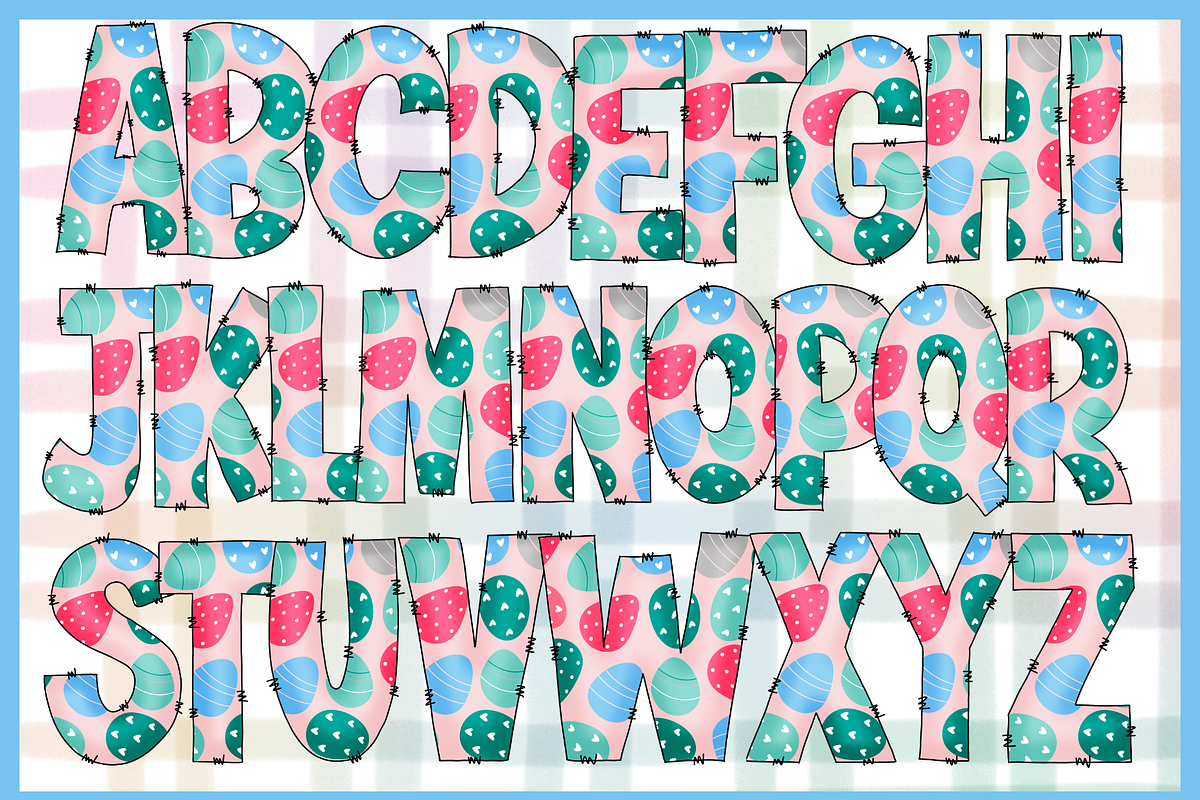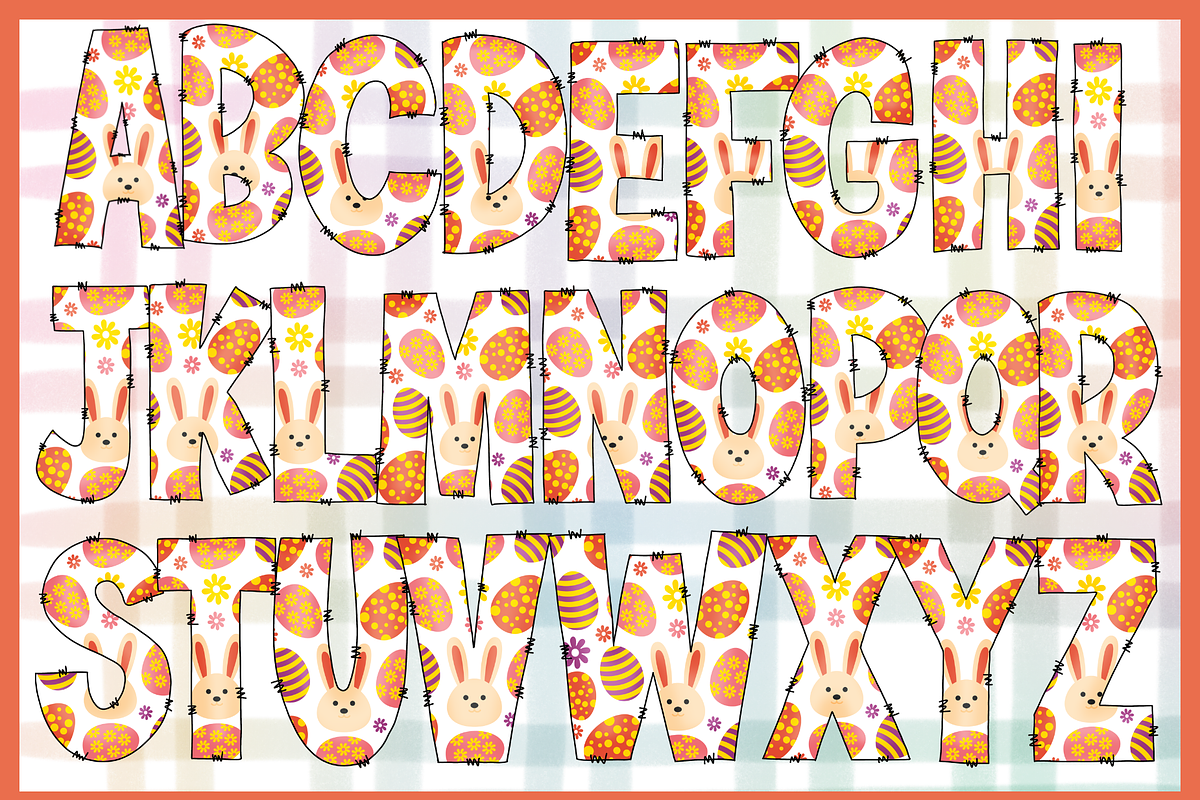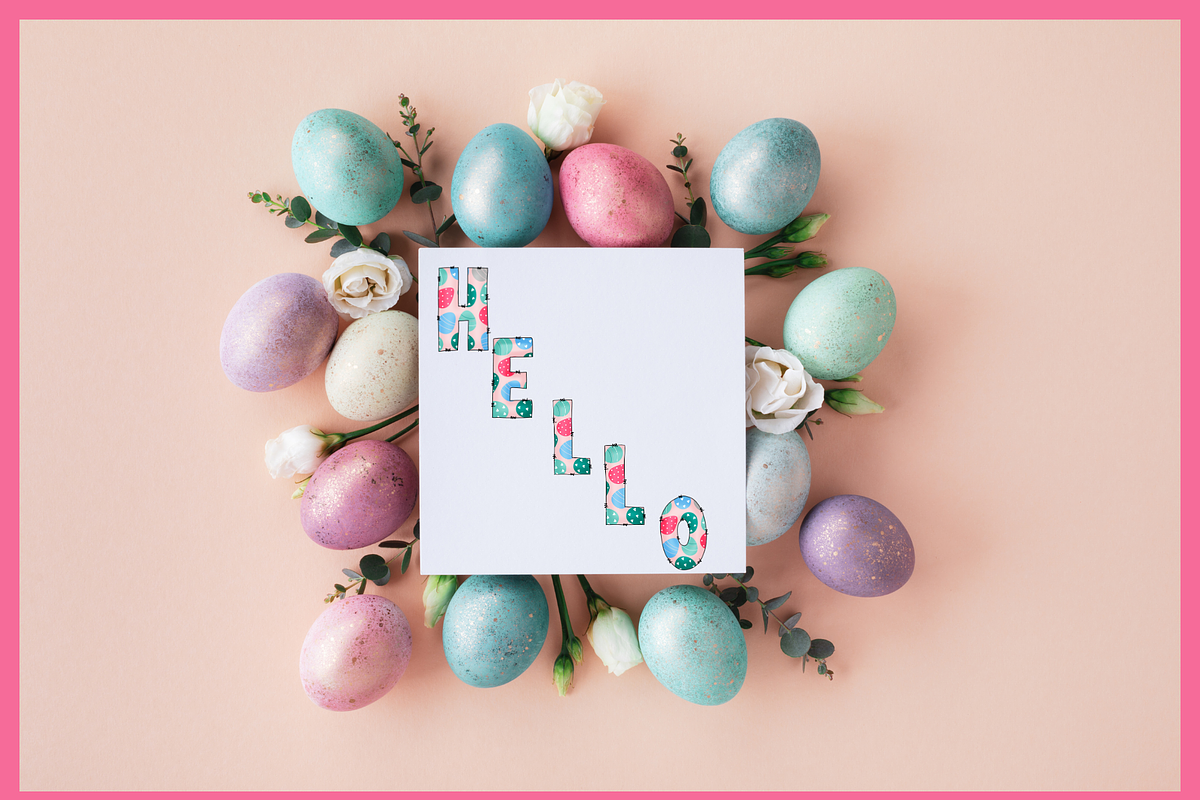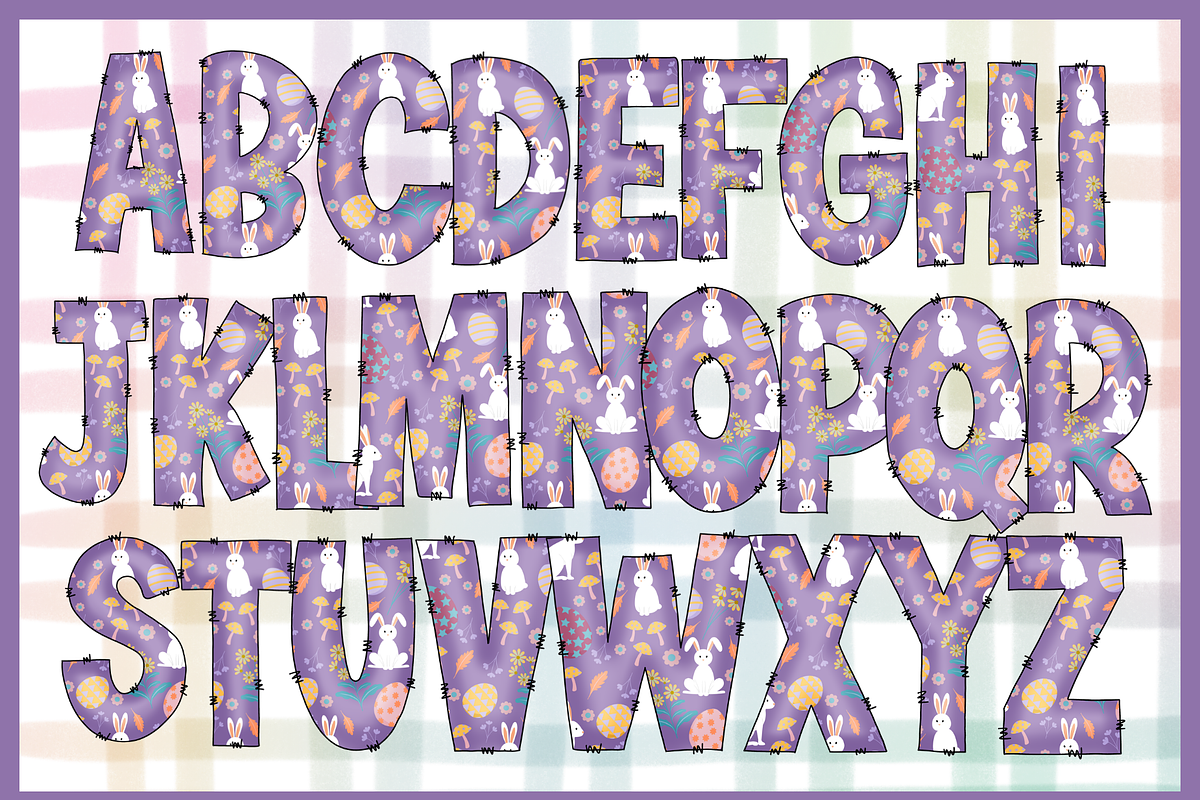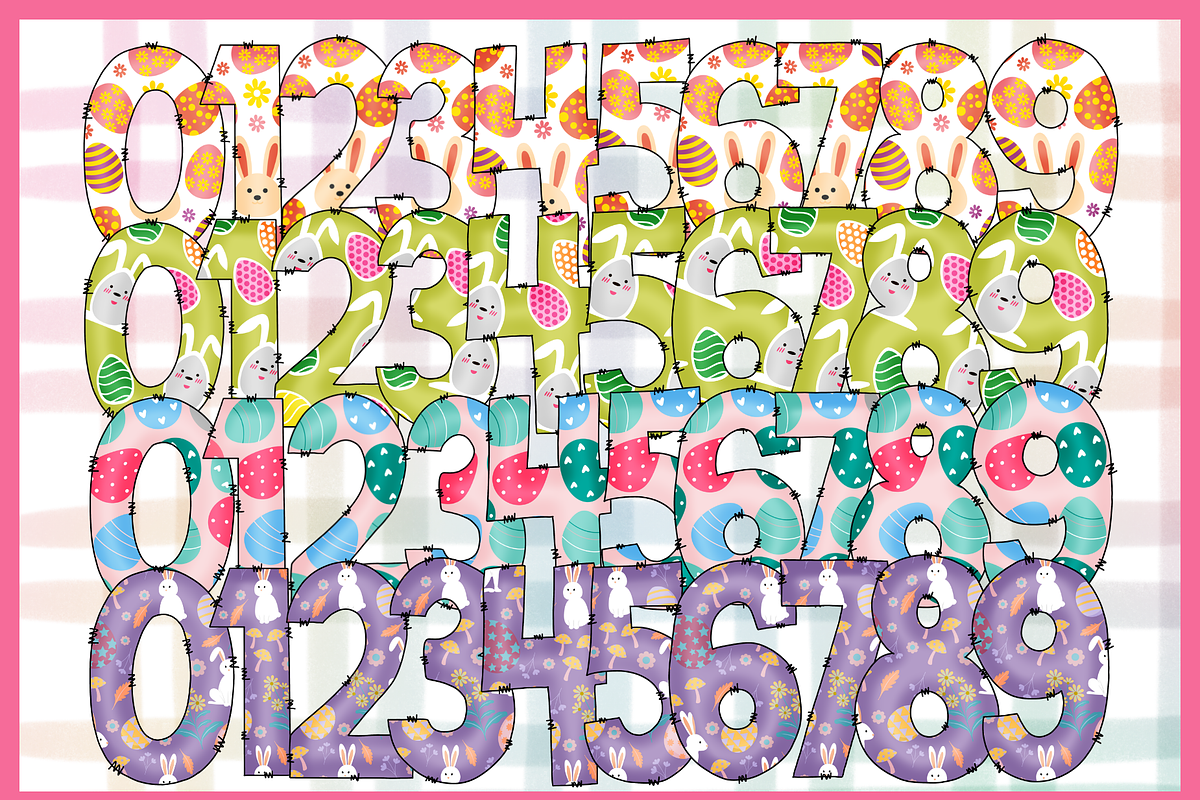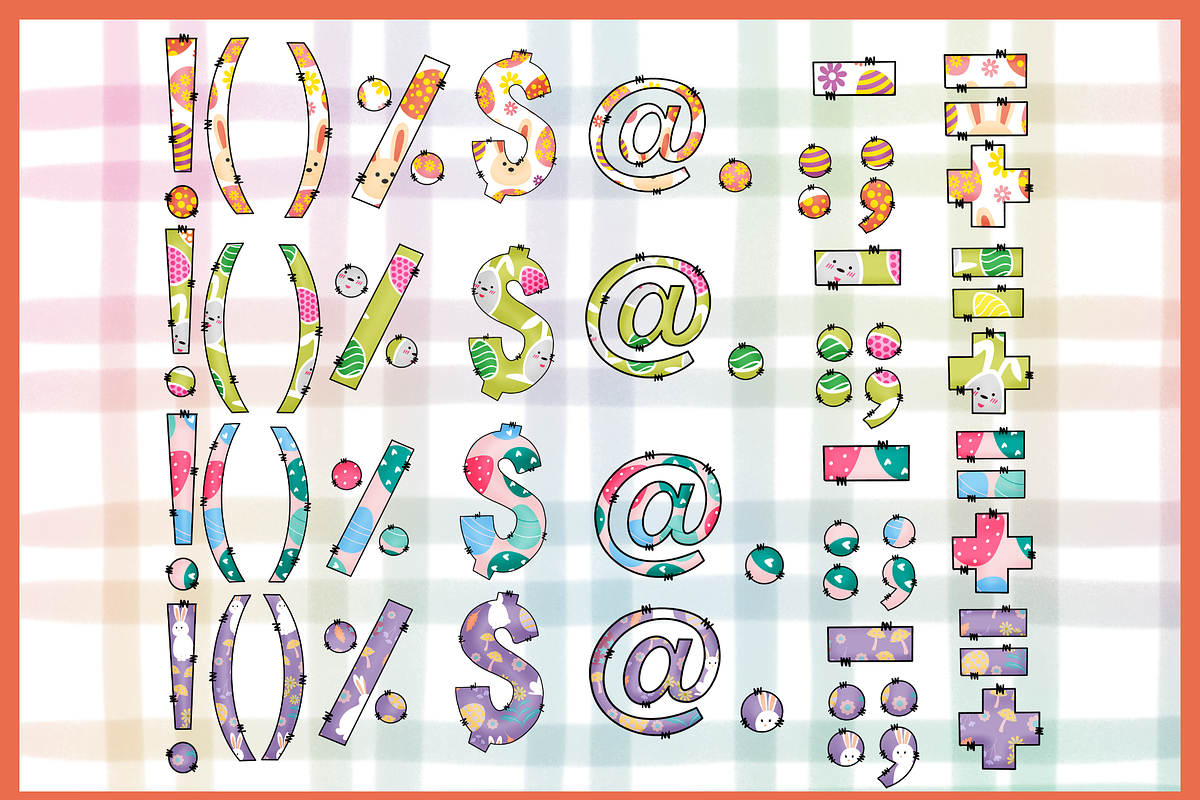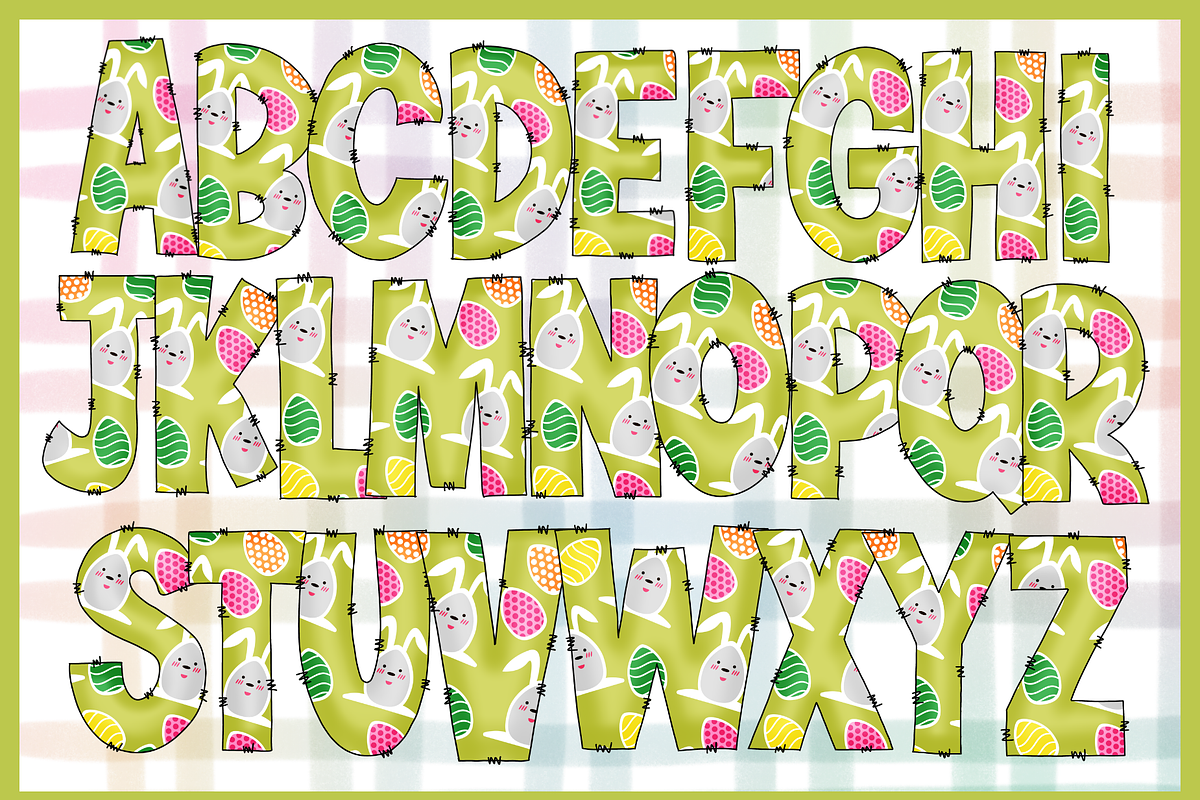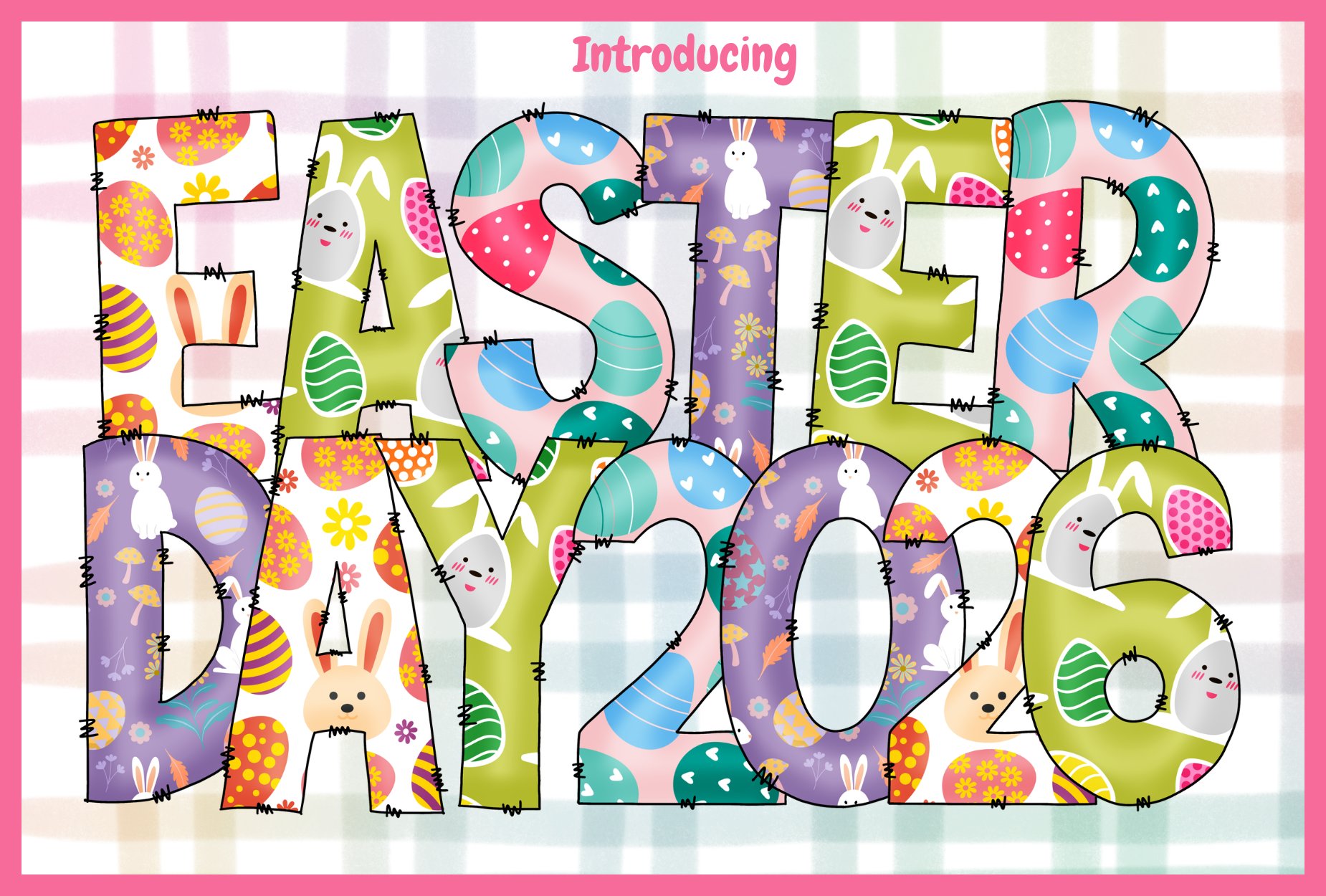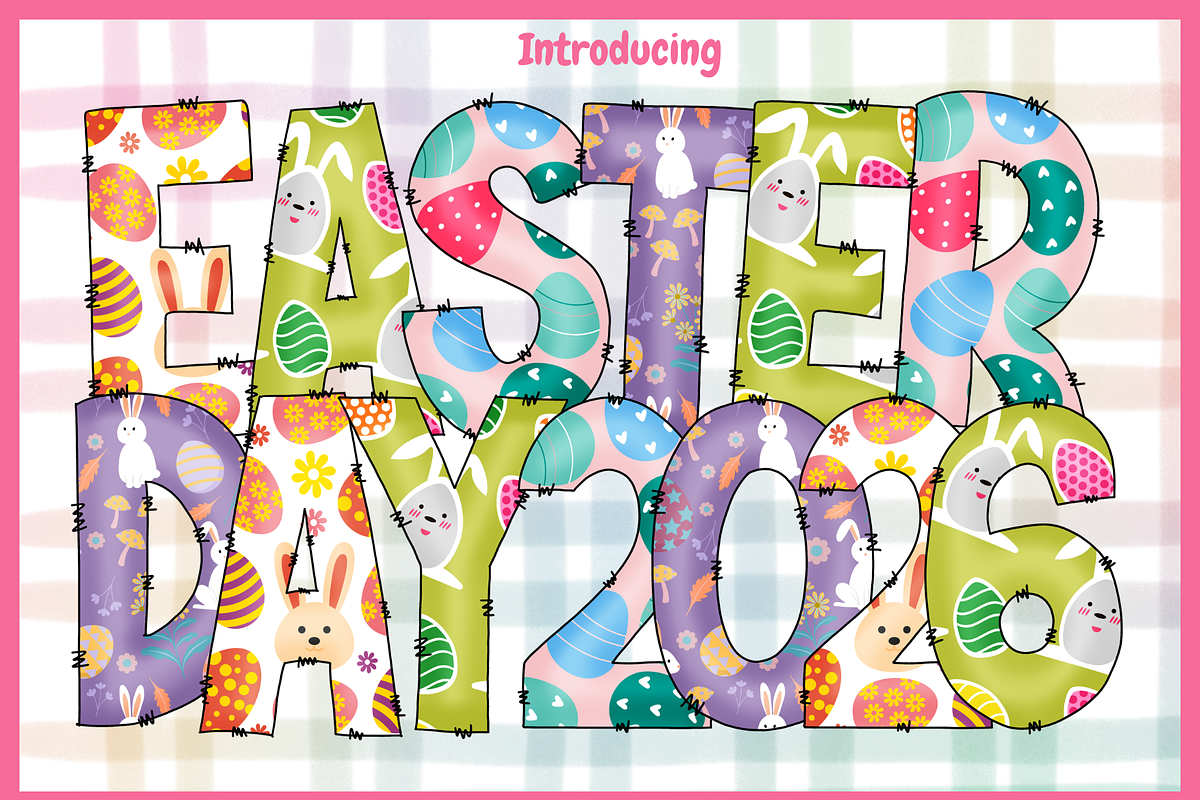
Easter Day 2026-PNG fonts
Easter Day PNG Alphabet – 4 Styles, 4 Colors
Celebrate the joy of Easter with this adorable Easter Day PNG Alphabet Set! This collection includes 4 unique styles in 4 beautiful color themes, specially designed for Easter projects. Each letter and number features charming Easter patterns such as bunnies, eggs, flowers, and soft spring-inspired colors that bring warmth and happiness to your designs.